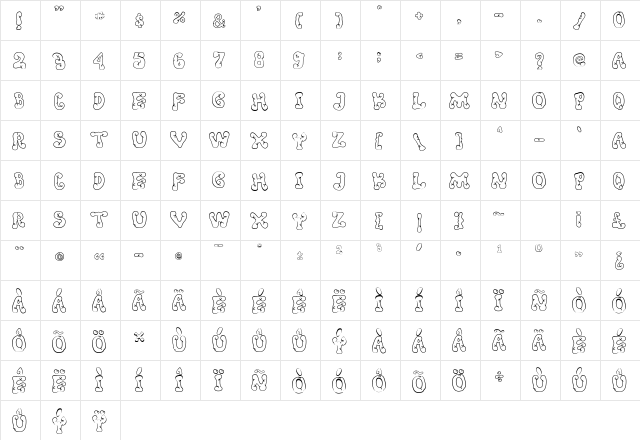
Resta Display Font Regular
Design Context for Resta Display Font Typeface
Resta Display Font is built around its visual character rather than neutral utility — its distinctive forms are designed to make an impression at display sizes.
Font Pairing: Pair with a clean neutral sans-serif for body copy to let Resta Display Font's character lead without overwhelming the composition.
Pro Tip: Treat Resta Display Font as the centrepiece of your typographic hierarchy. One strong heading set in a decorative face can carry an entire layout.